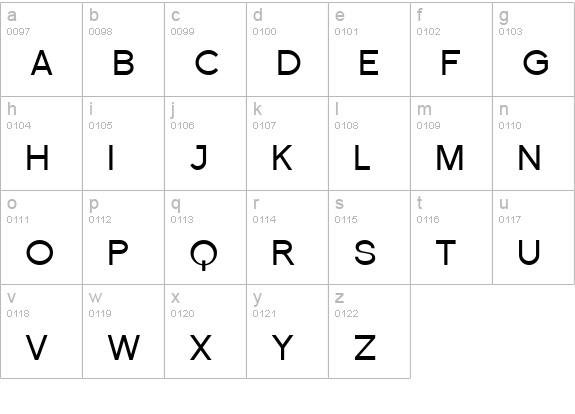
Florencesans SC is a stunning and versatile sans-serif font that exudes elegance and sophistication. Its clean lines and modern design make it the perfect choice for a wide range of design projects, from branding to editorial design. With its unique style and timeless appeal, Florencesans SC is sure to make your text stand out and leave a lasting impression on your audience. What sets Florencesans SC apart is not only its exceptional design but also the fact that it is available for free download at FontsMarket.com. This means that you can easily access this beautiful font and use it in your projects without any cost. Whether you're working on a website, a poster, a logo, or any other design project, Florencesans SC is a fantastic choice that will elevate your work to the next level. Don't miss out on the opportunity to enhance your designs with the beauty and elegance of Florencesans SC. Download this stunning font for free at FontsMarket.com and see for yourself how it can transform your projects into works of art.